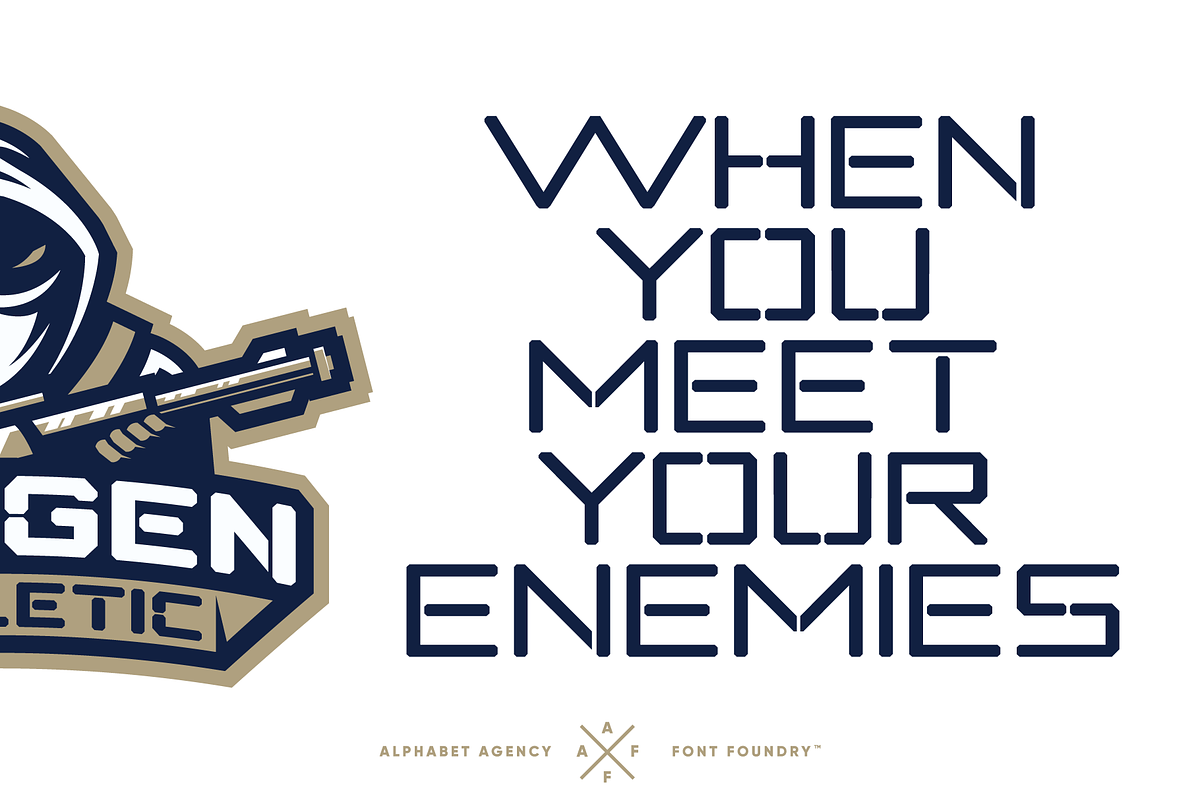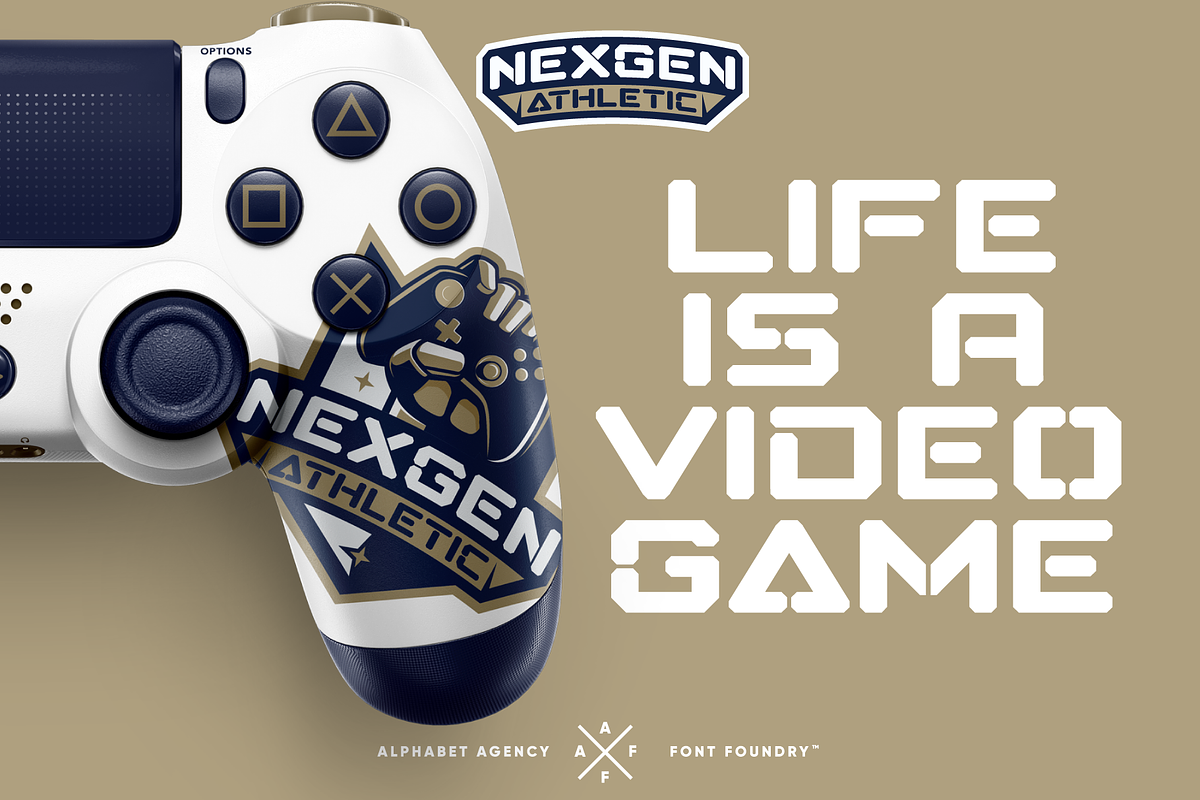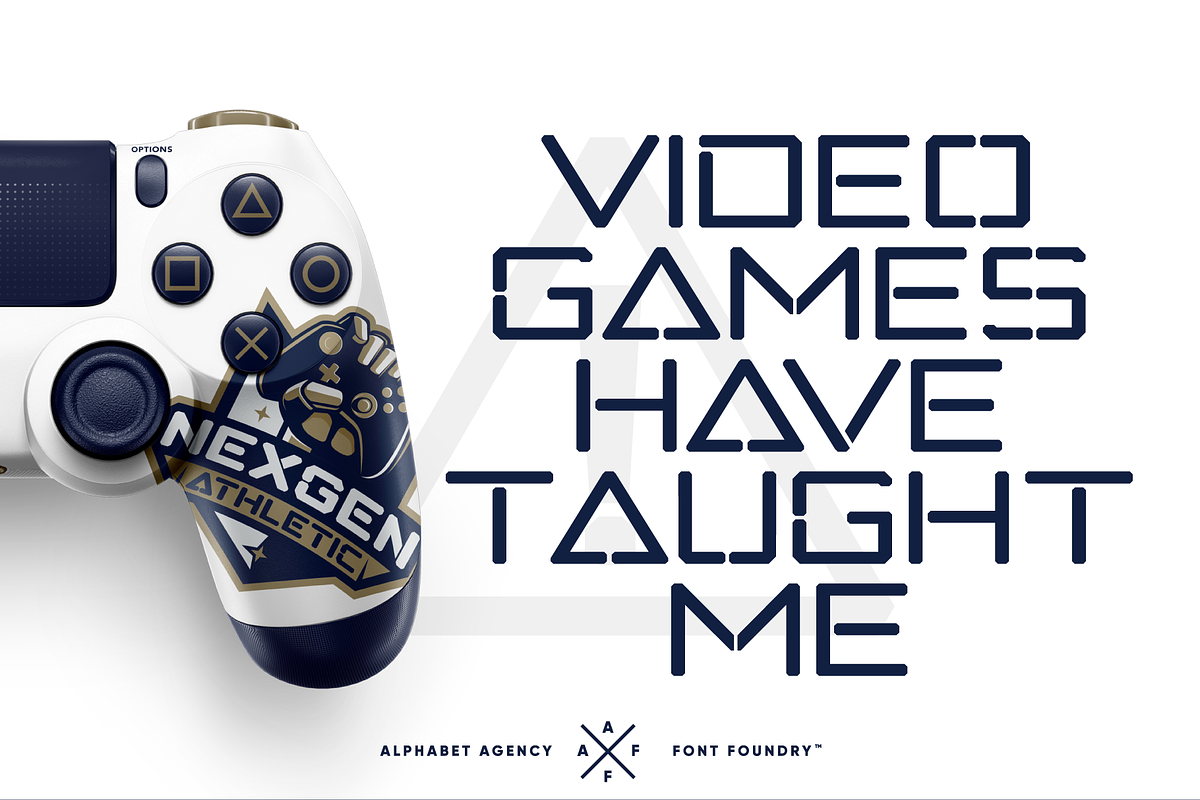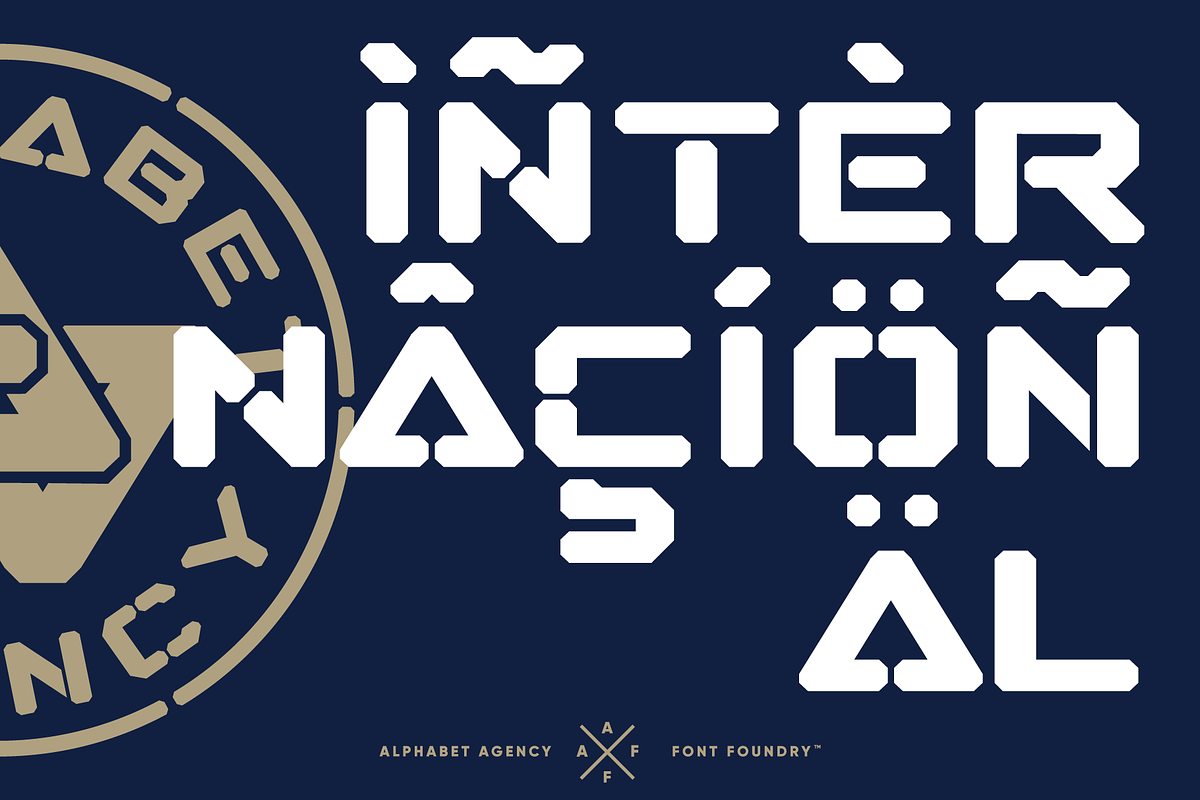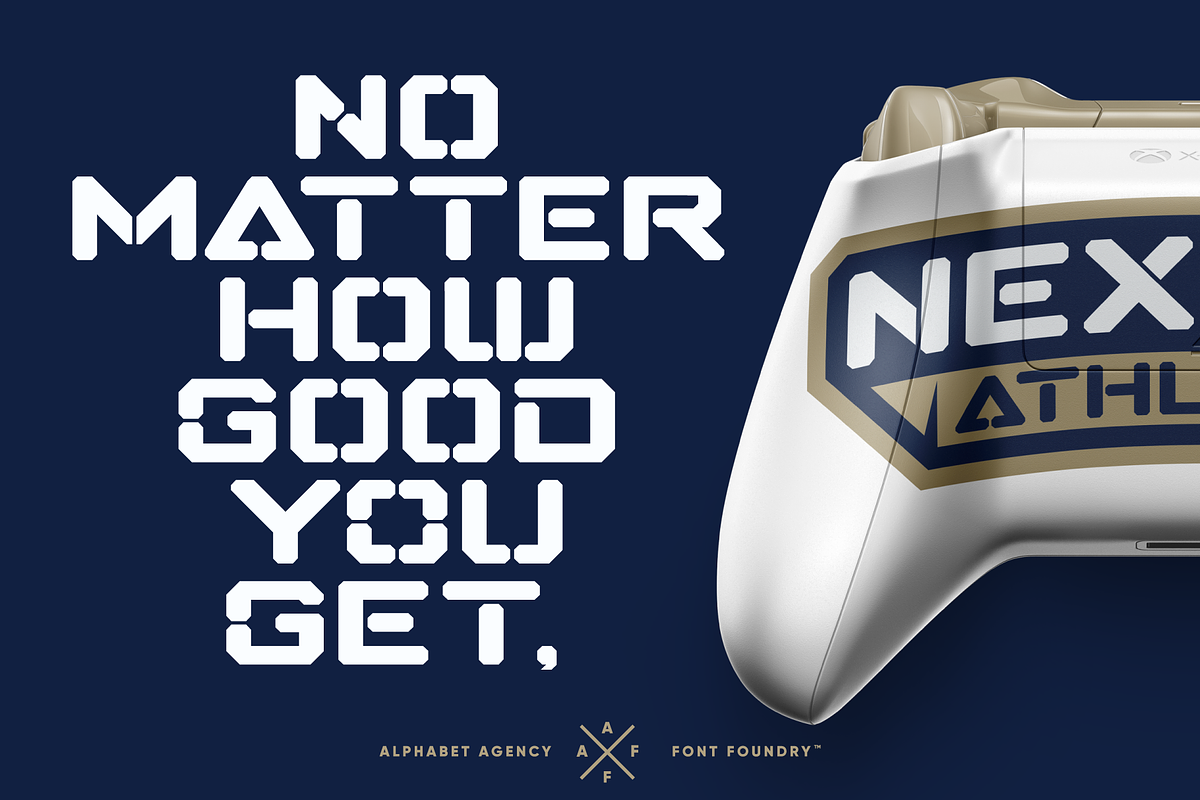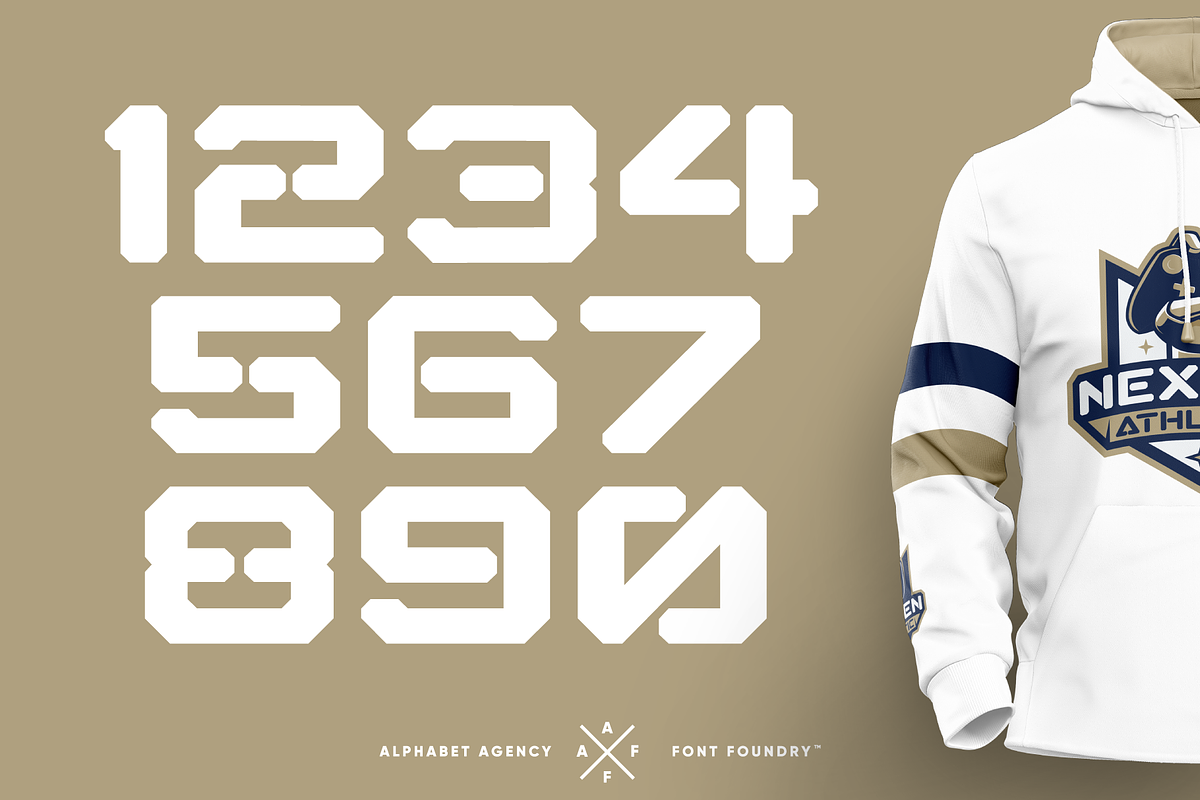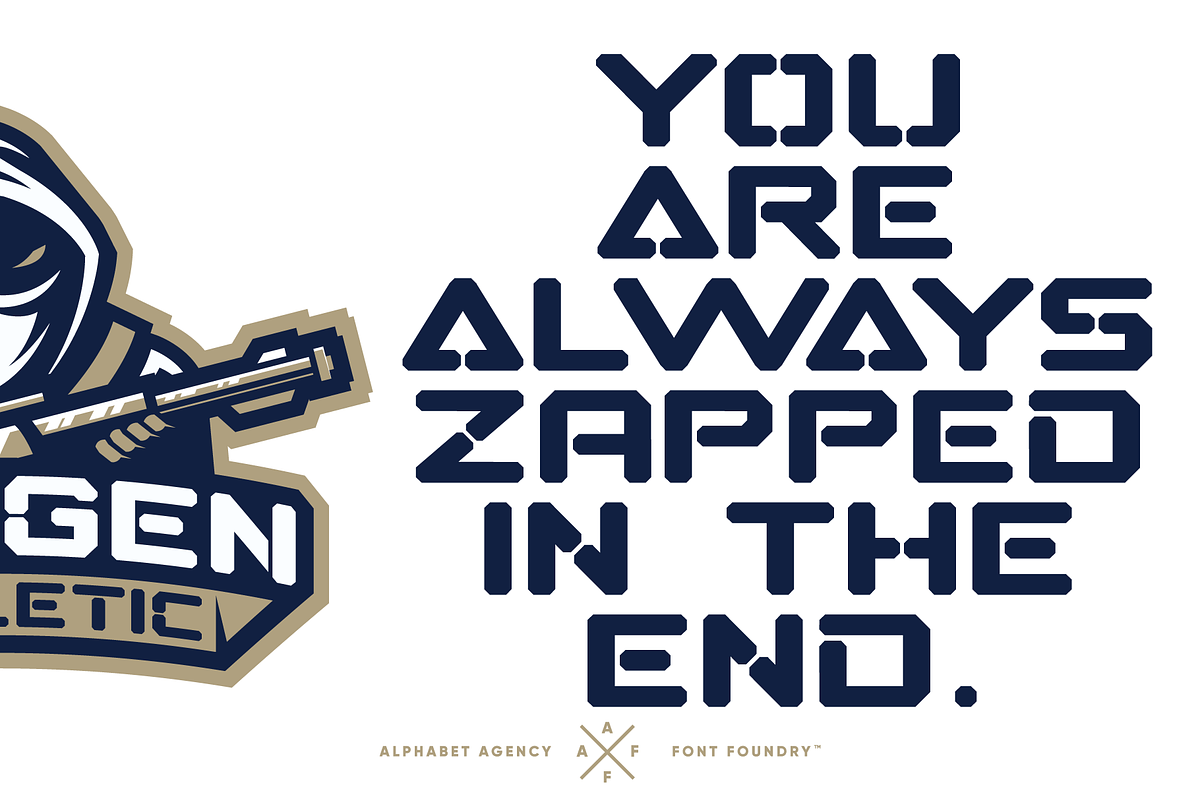
NEXGEN ATHLETIC FONT DUO
Why NEXGEN ATHLETIC FONT DUO is worth a look
NEXGEN ATHLETIC FONT DUO by Alphabet Agency fits naturally into Branding, posters, packaging, typography.